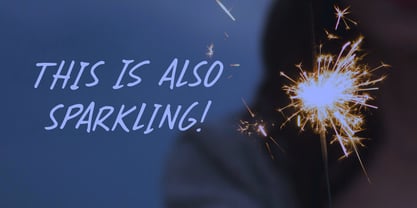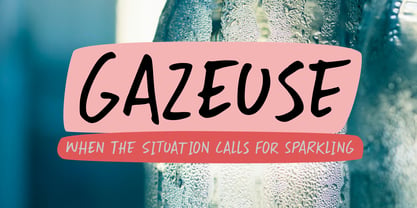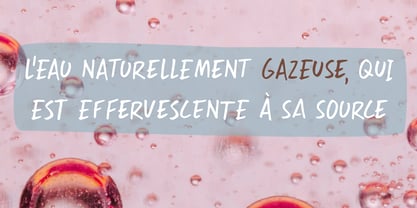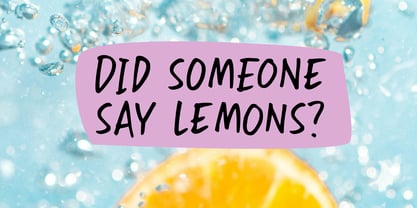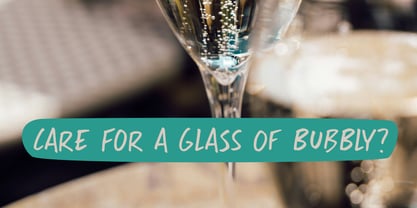
Gazeuse
by Hanoded
The Gazeuse Font Family was designed by David Kerkhoff and published by Hanoded. Gazeuse contains 2 styles and family package options. More about this family
Gazeuse is a French word for ‘sparkling’ or ‘carbonated’. It is found on bottles of water, or soda. The Dutch really liked this word and stole it from the French, so for a long time, all soda was called ‘gazeuse’ in Holland. We now use ‘frisdrank’, which means ‘fresh drink’.
Gazeuse is a handmade font. It is a fast-paced, modern ‘let’s write that down quickly’ kinda font. Comes with extensive language support and a set of alternates for the lower case glyphs.
Designers: David Kerkhoff
Foundry: Hanoded
Hanoded is run by Dutchman David Kerkhoff. His fonts are a mishmash of styles, as he just creates whatever pops into his head. You will find a lot of brush fonts in his collection, as his favourite tools are brushes and Chinese ink, with cartoon style fonts and script fonts complementing his repertoire. Aside from making fonts, David occasionally guides tours in far-flung places, renovates his '30's house and tries reasoning with his wife and (teenage) kids. Not an easy task!